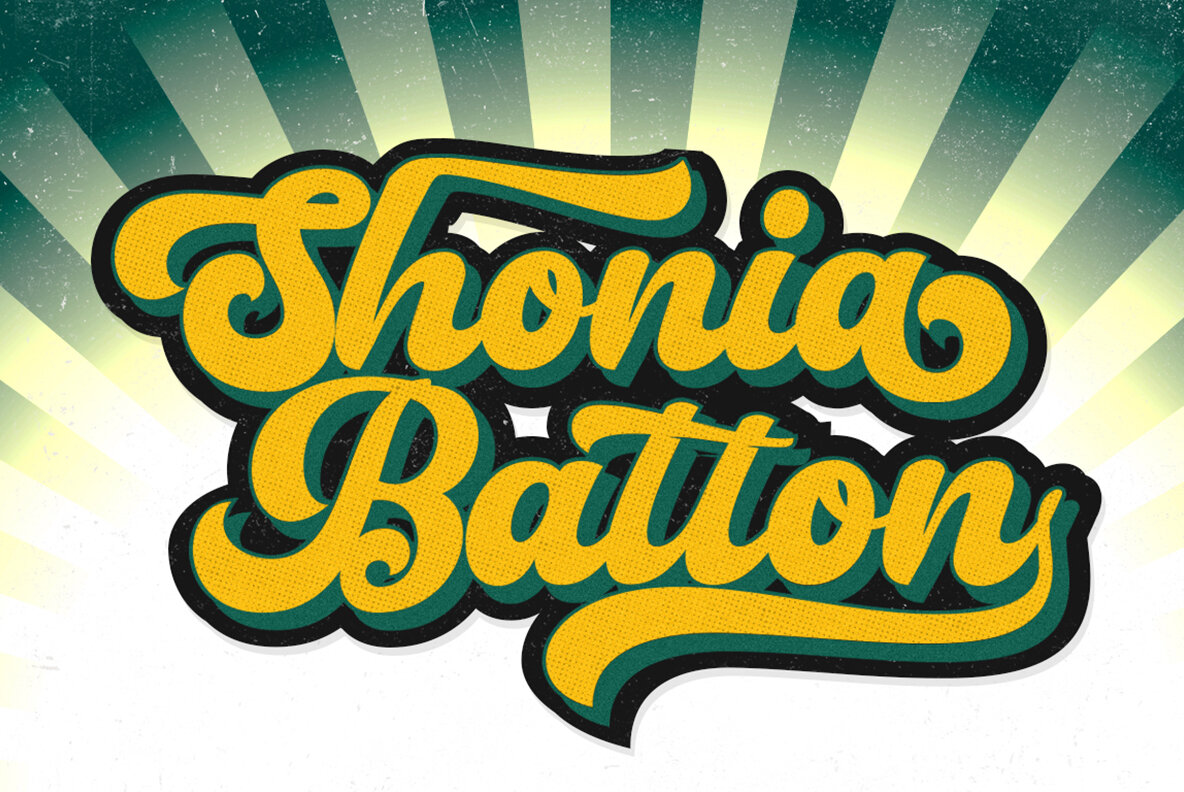
Nigthwel Script Font
Drawing inspiration from retro style and hand lettering, Nigthwel Script is a dynamic and versatile font perfect for creative projects. The script offers numerous alternative swashes and ligatures, making it highly flexible for custom designs. With OpenType features like stylistic alternates, stylistic sets, and ligatures, Nigthwel allows for easy mix and match to achieve the desired look. Ideal for a range of applications, Nigthwel Script enhances logotypes, posters, badges, book covers, t-shirt designs, handwritten quotes, packaging, headers, merchandise, and social media content. For access to all alternative characters, use programs like Adobe Illustrator CS, Adobe InDesign, CorelDraw X6-X7, or later versions of Microsoft Word. Accessible via Windows Character Map or Mac's Font Book.Nigthwel Script: A Retro Hand Lettering Font